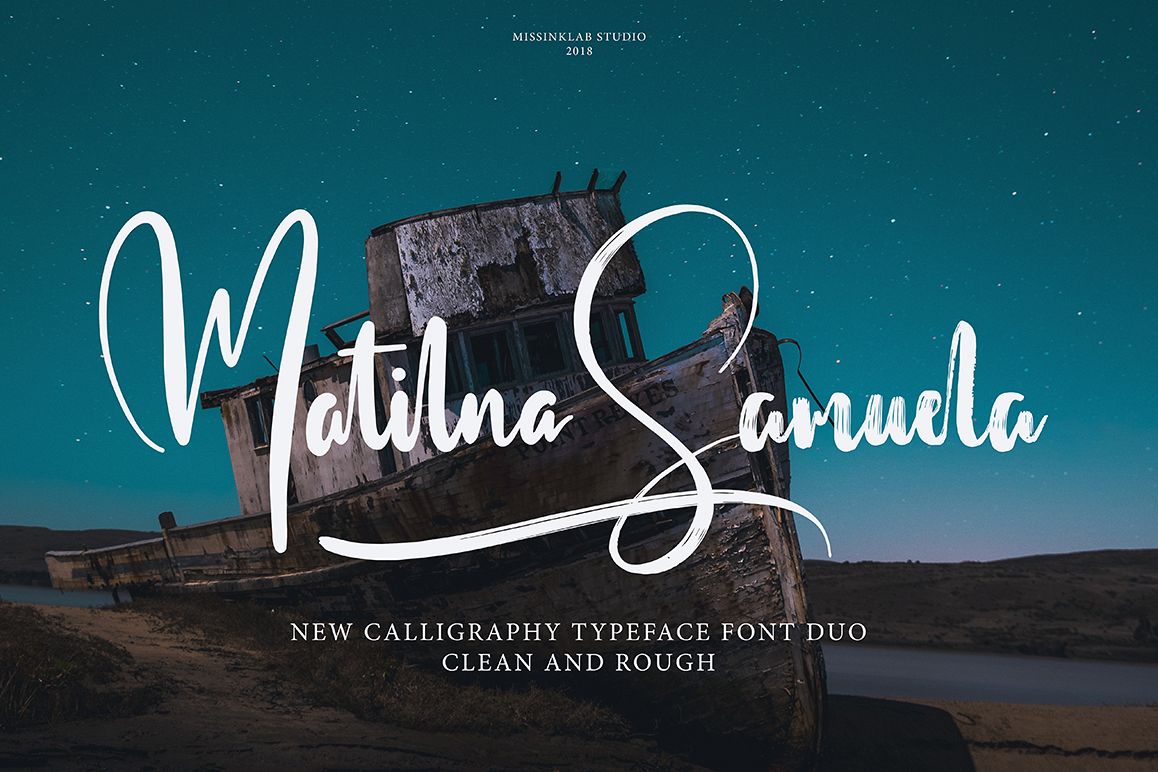
Matilna Samuela
Matilna Samuela modern script font with modern style, this font will perfect for many different project ex: quotes, logo, blog header, poster,  banding, fashion, apparel, letter, invitation, stationery, etc..